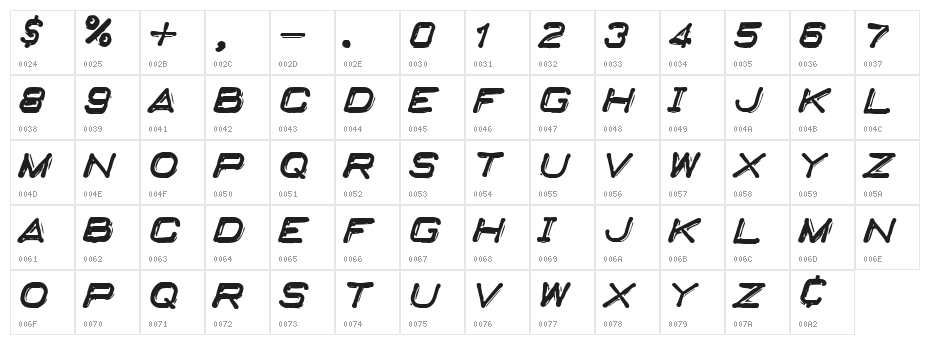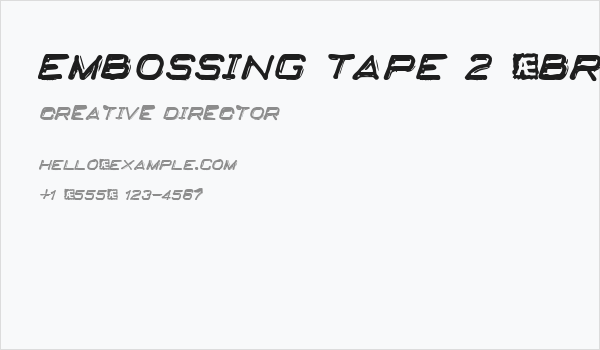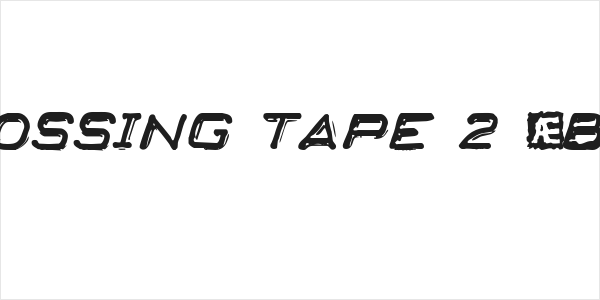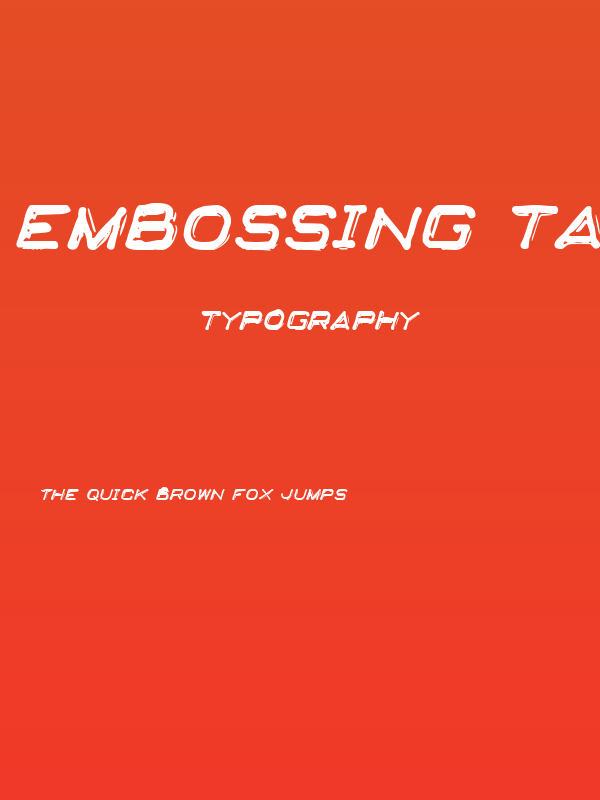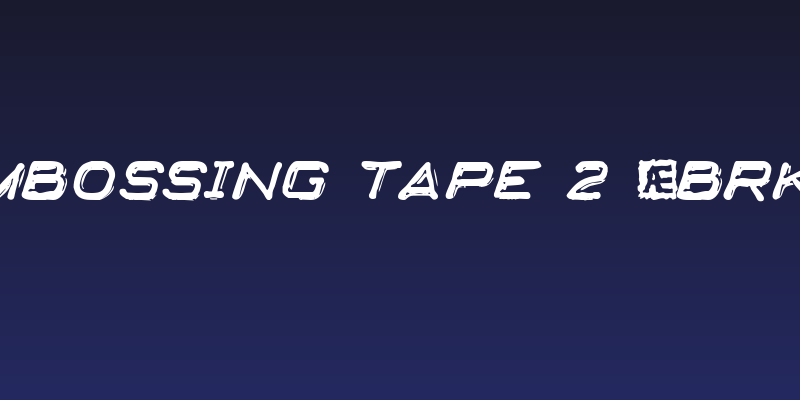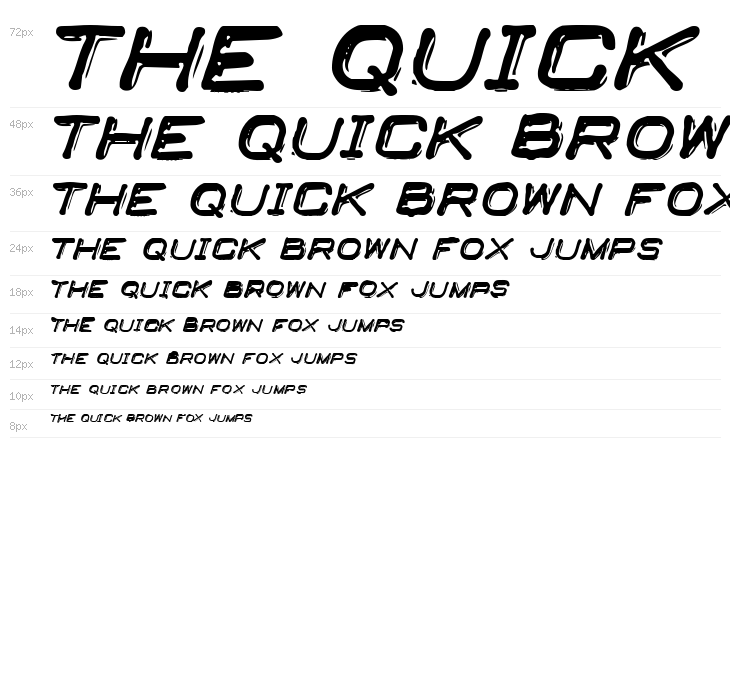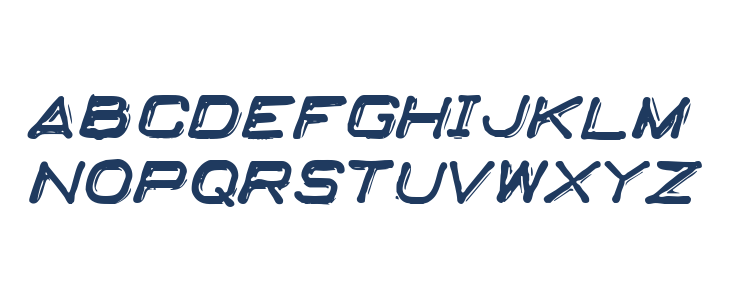
Embossing Tape 2 [BRK] Font
Embossing Tape 2 [BRK] Description
This font features a distinctive, embossed style reminiscent of classic label-making tape. Each character is designed with a bold, three-dimensional appearance, giving the impression of being pressed or stamped onto a surface. The uppercase and lowercase letters maintain a consistent style, with slightly rounded edges and a uniform stroke width. The numbers and special characters follow the same design principles, ensuring a cohesive look across all glyphs. This font's unique aesthetic makes it stand out, offering a retro yet modern feel that can add character to any project.
| Overall Style | Retro, Decorative |
| Use Case | Logos, Headlines, Labels |
| Proposed Projects | Ideal for retro-themed designs, DIY projects, branding, packaging, and creative labels. |